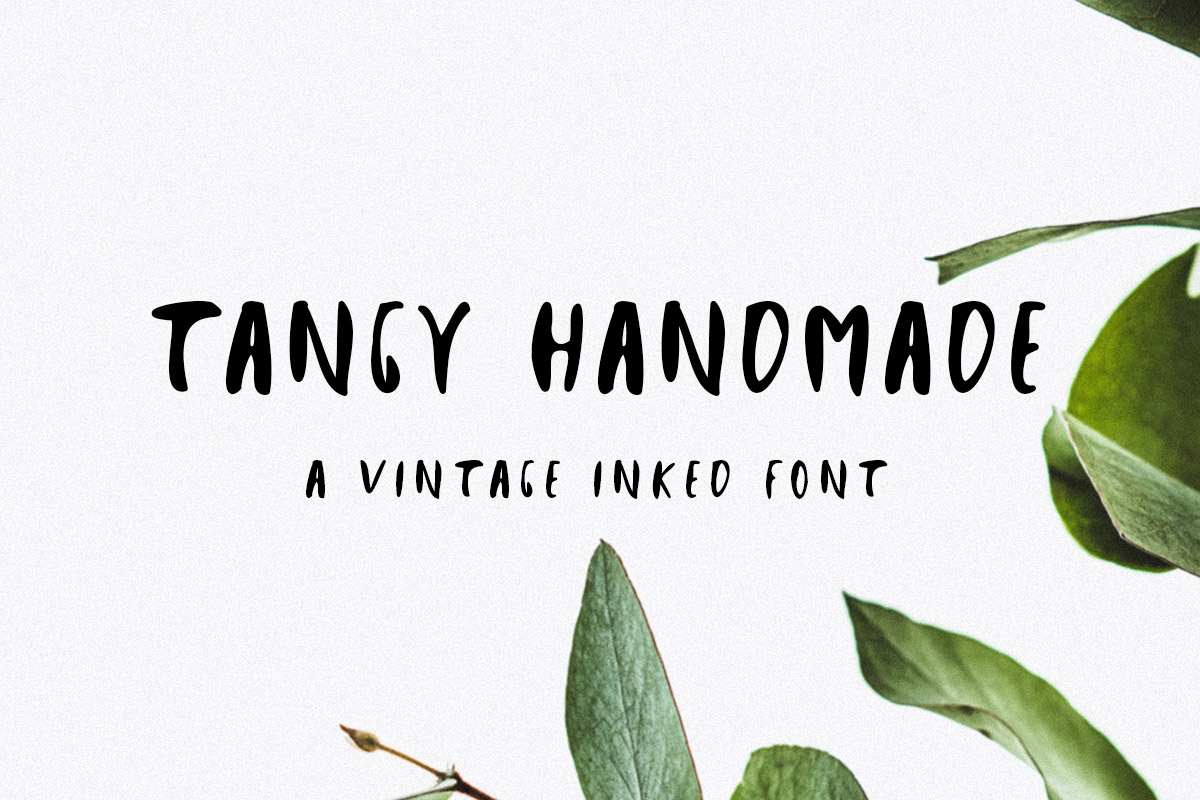
Tangy Handmade Inked Font
Tangy Handmade Inked Font is a natural and elegant hand-drawn vintage ink font with ink style letters for your upcoming projects.
It contains uppercase and number only. Tangy Handmade font looks very awesome for wedding, feminine branding, social media, card, logos, web, branding, stationery, advertisements, product packaging, label, photography, watermark, special events, handmade notes, or just adding a professional touch to any projects!